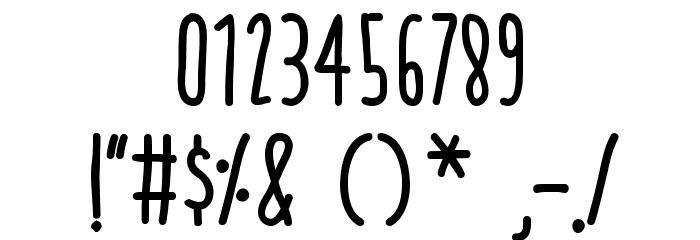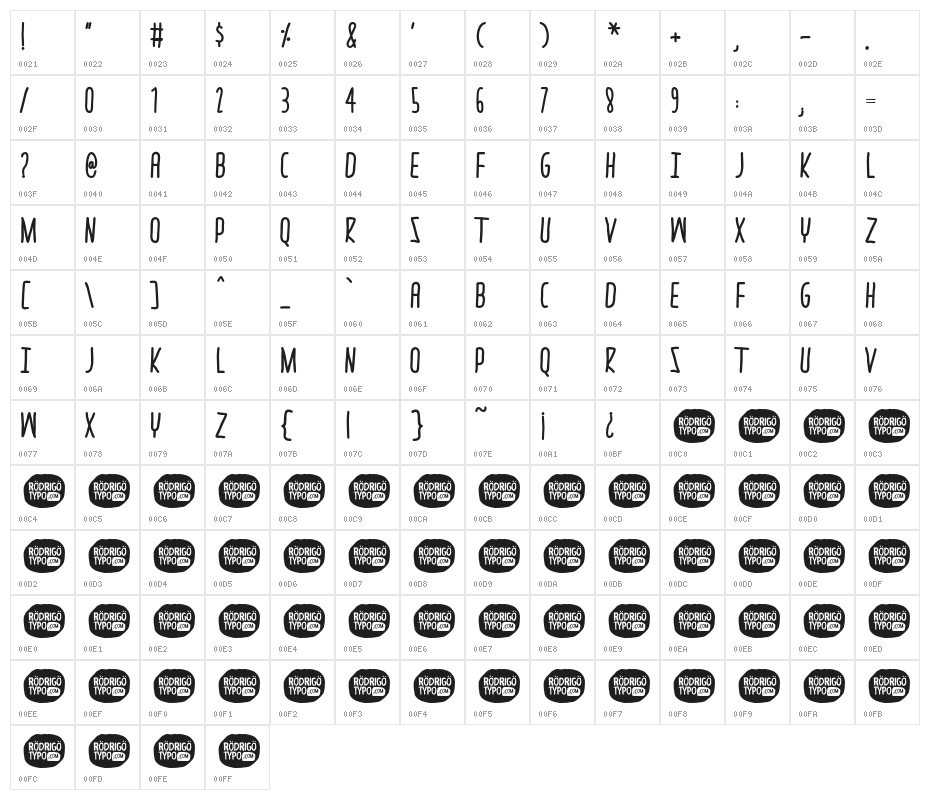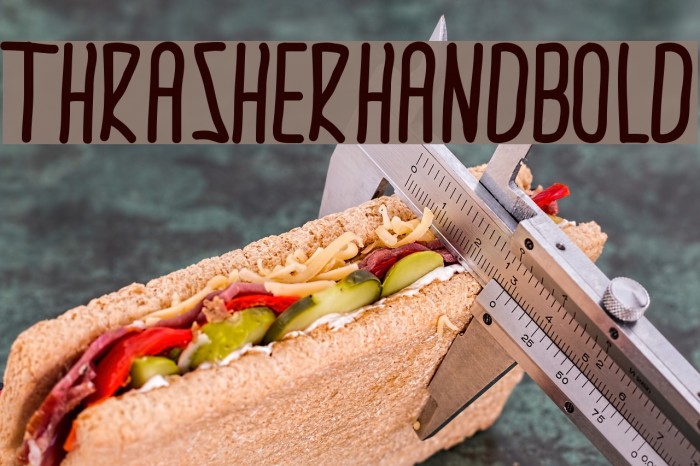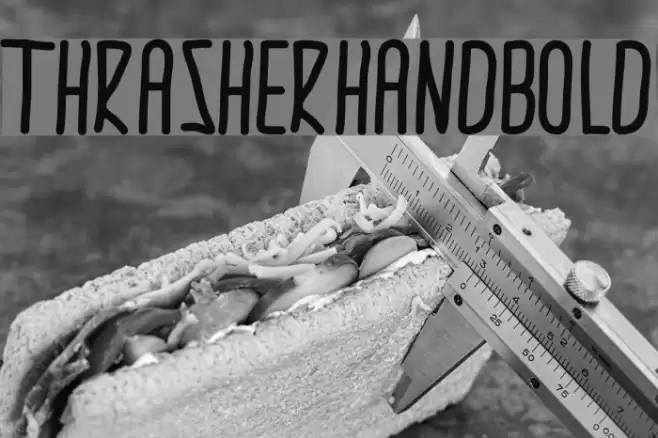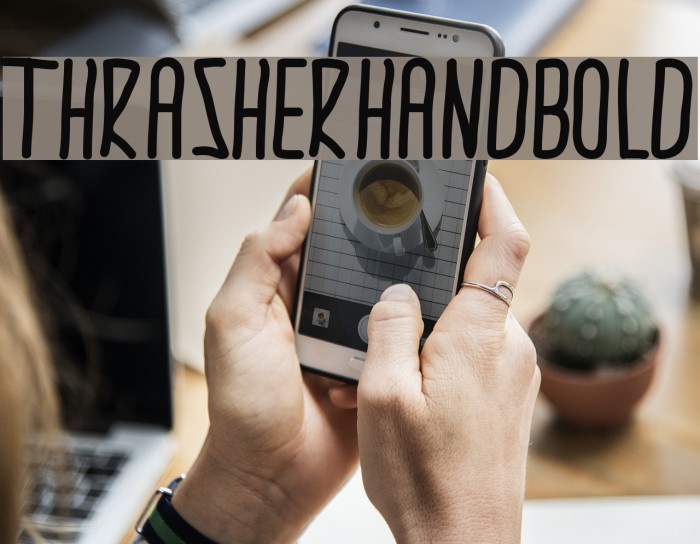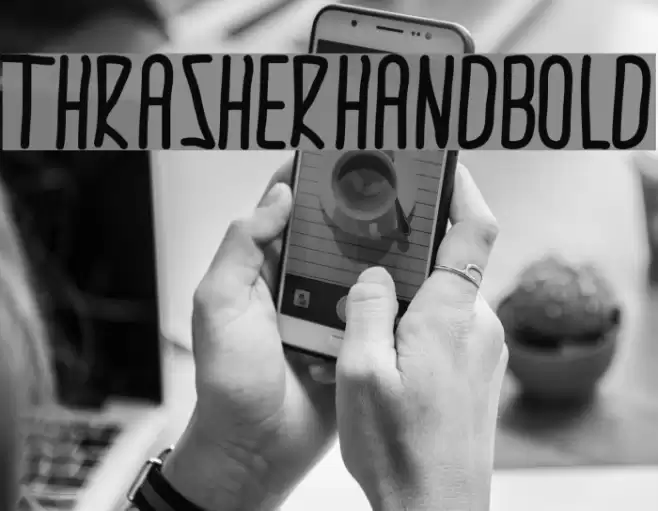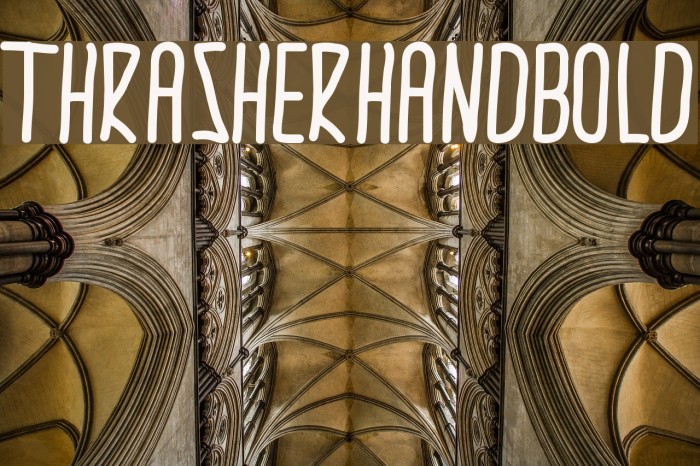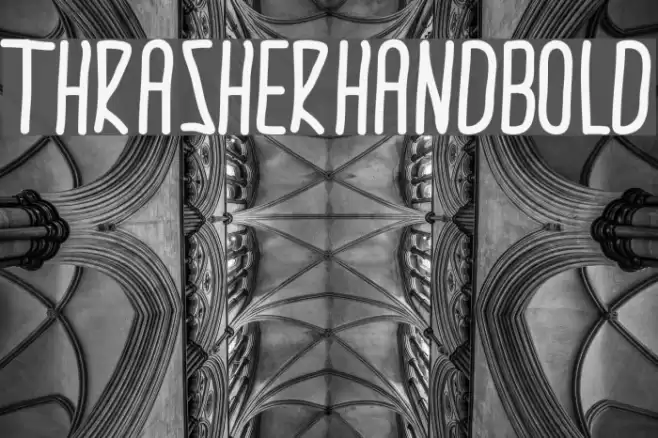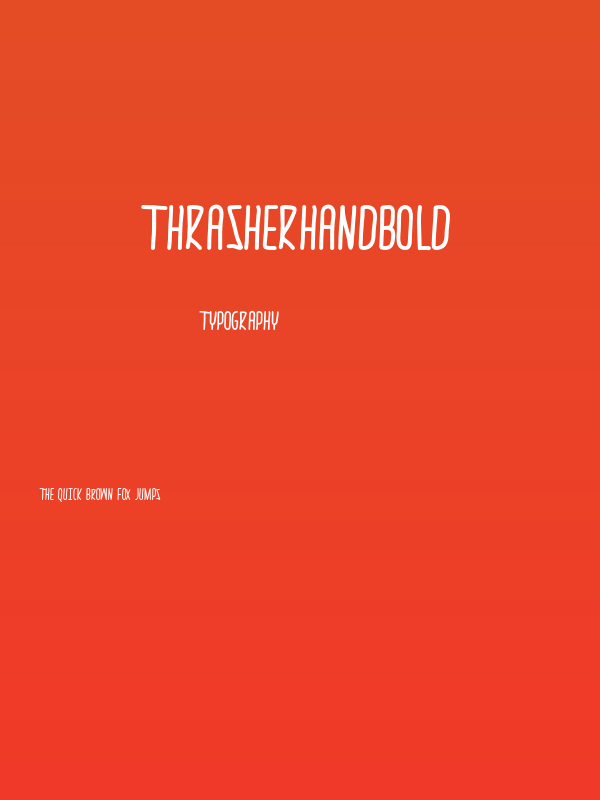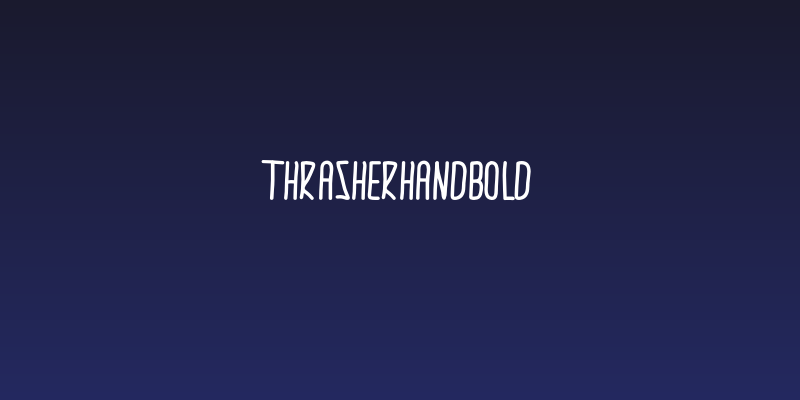
thrasherhandBold Font
thrasherhandBold Description
This font features a bold, handwritten style with elongated, slightly irregular strokes that give it a dynamic and energetic appearance. The characters are tall and narrow, with a playful yet assertive presence. The uppercase and lowercase letters maintain a consistent flow, while the numerals and special characters complement the overall aesthetic. This font's unique style is characterized by its casual, informal vibe, making it suitable for creative and expressive projects.